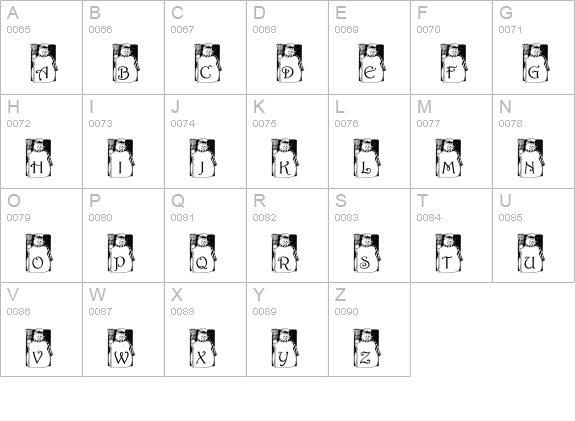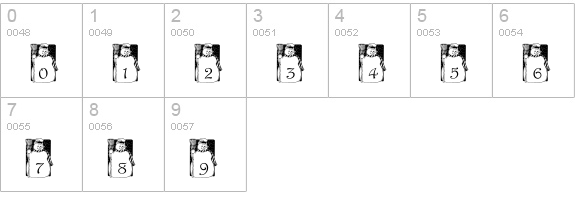
pf_snowman1 Font Details
Introducing pf_snowman1, a delightful and whimsical font that embodies the joy and magic of the winter season. This font is the perfect addition to any project that needs a touch of frosty charm. With its playful and rounded letterforms, pf_snowman1 captures the essence of a jolly snowman, complete with a carrot nose and a top hat. But what makes pf_snowman1 even more special is that it is not only a beautiful font, but it is also free! That's right, you can freely download pf_snowman1 at FontsMarket.com. Whether you're designing holiday greeting cards, creating winter-themed posters, or adding a touch of winter wonder to your website, pf_snowman1 is the ideal choice. The versatility of pf_snowman1 is evident in its range of characters and symbols. From uppercase and lowercase letters to numbers and punctuation, this font has everything you need to bring your winter-inspired designs to life. With its clean and crisp outlines, pf_snowman1 is highly legible, ensuring that your message will be conveyed with clarity and style. With pf_snowman1, you can effortlessly create a festive atmosphere that will make your audience feel the warmth and joy of the winter season. So why wait? Embrace the magic of pf_snowman1 and let your creativity soar. Download this delightful font for free at FontsMarket.com and let the snowman come to life in your designs.